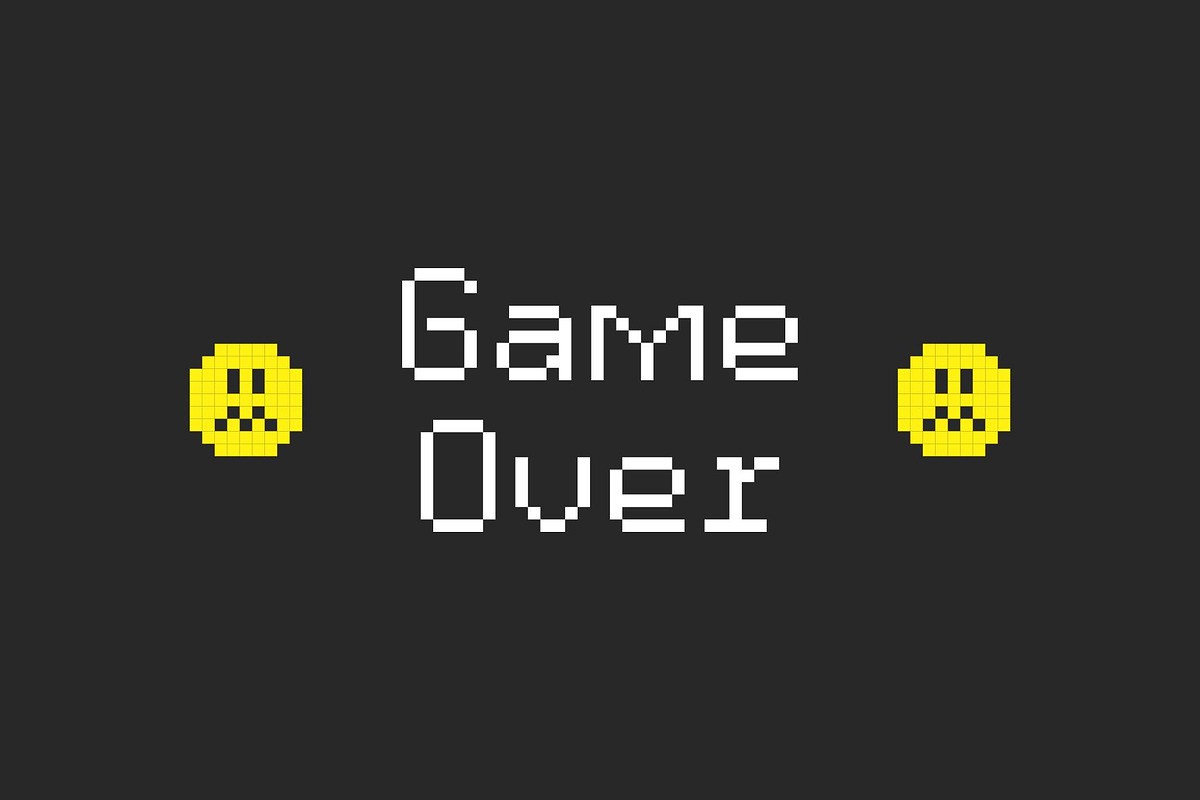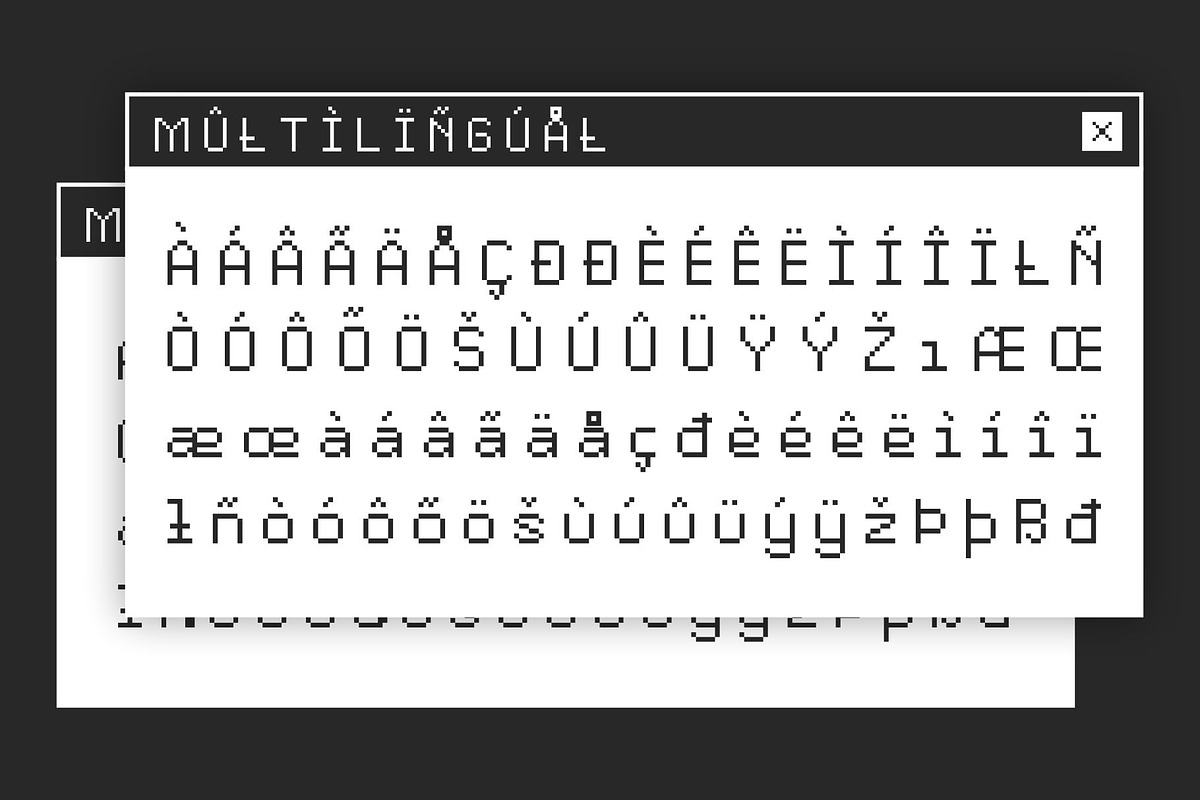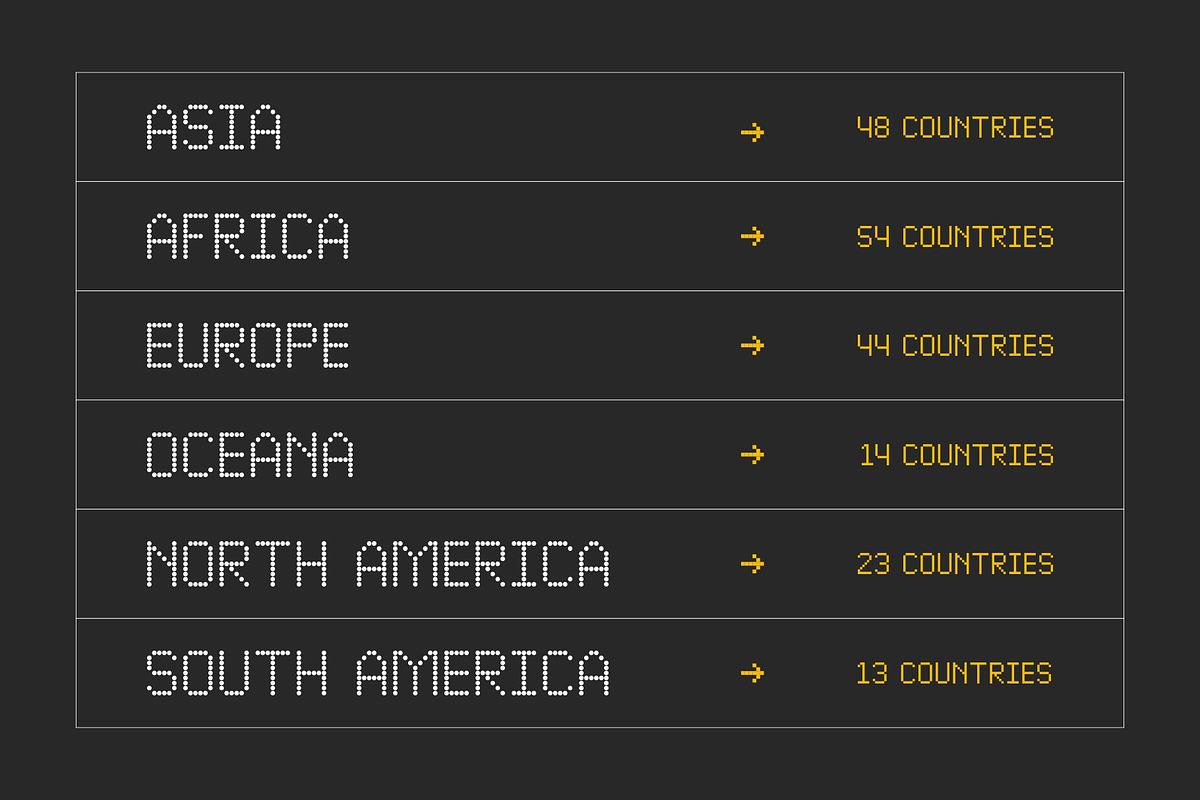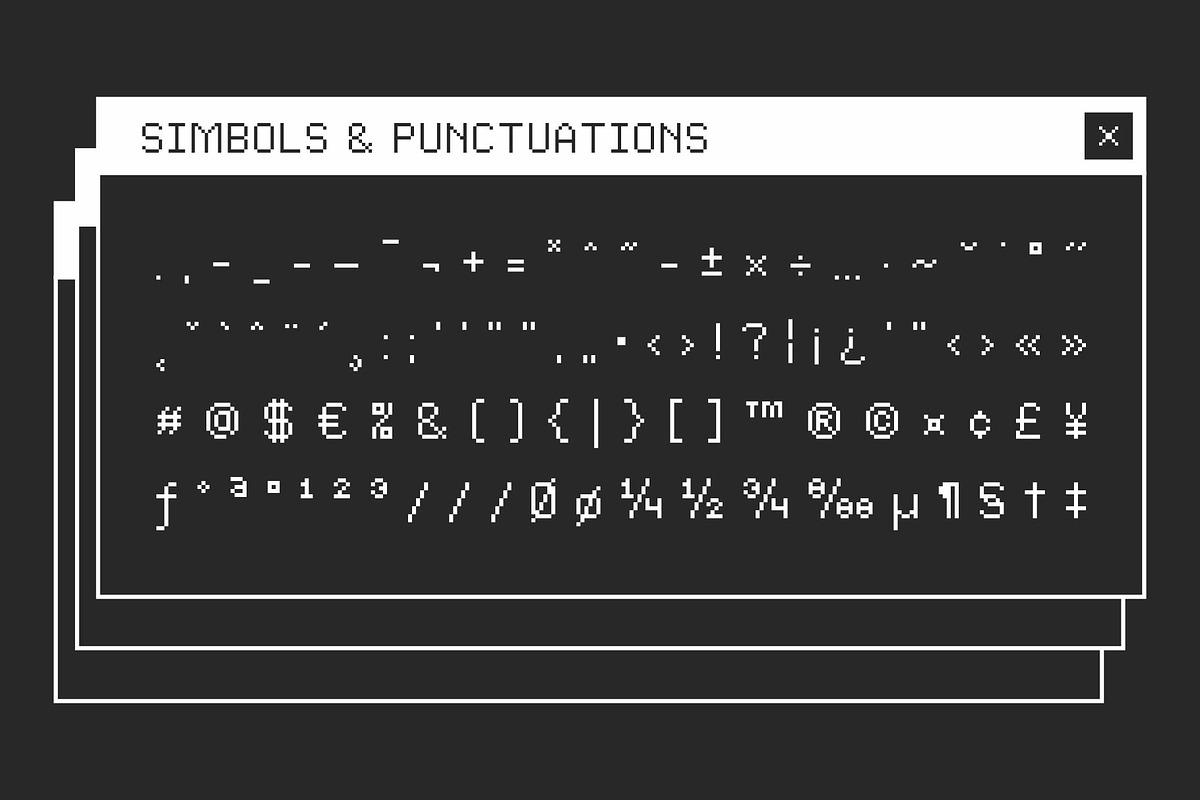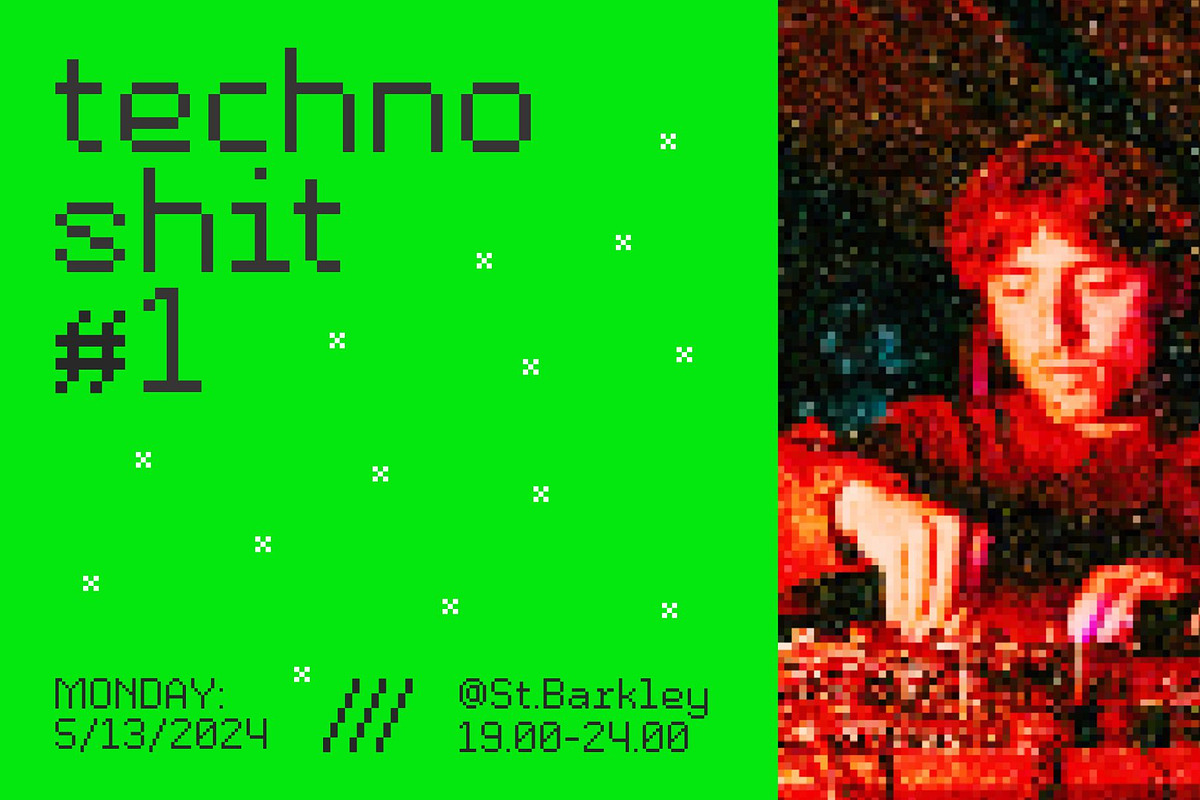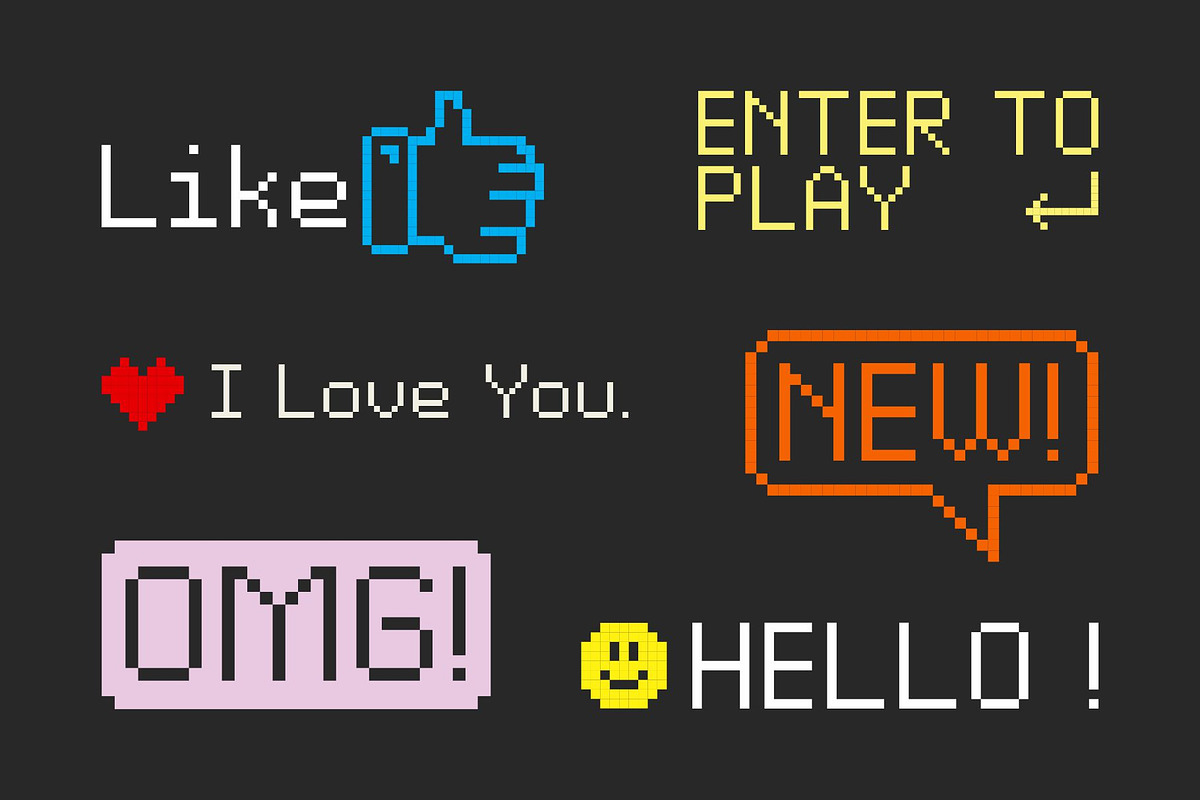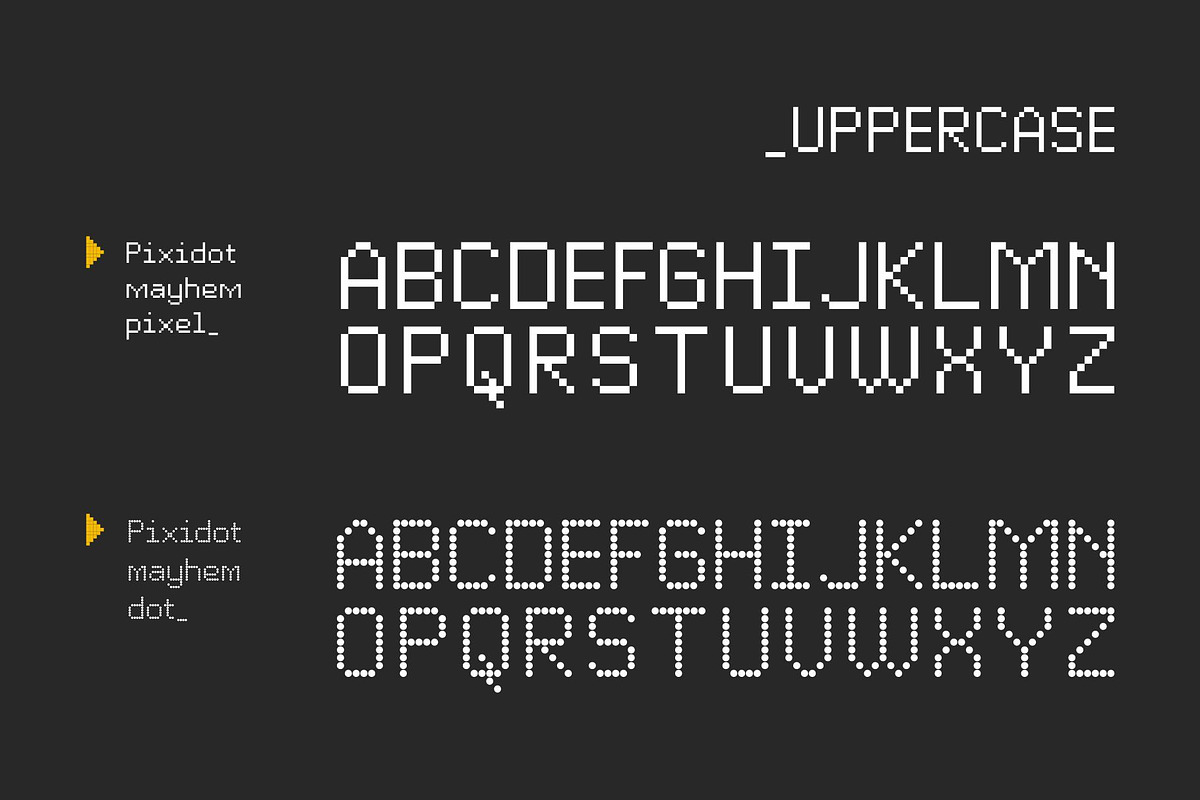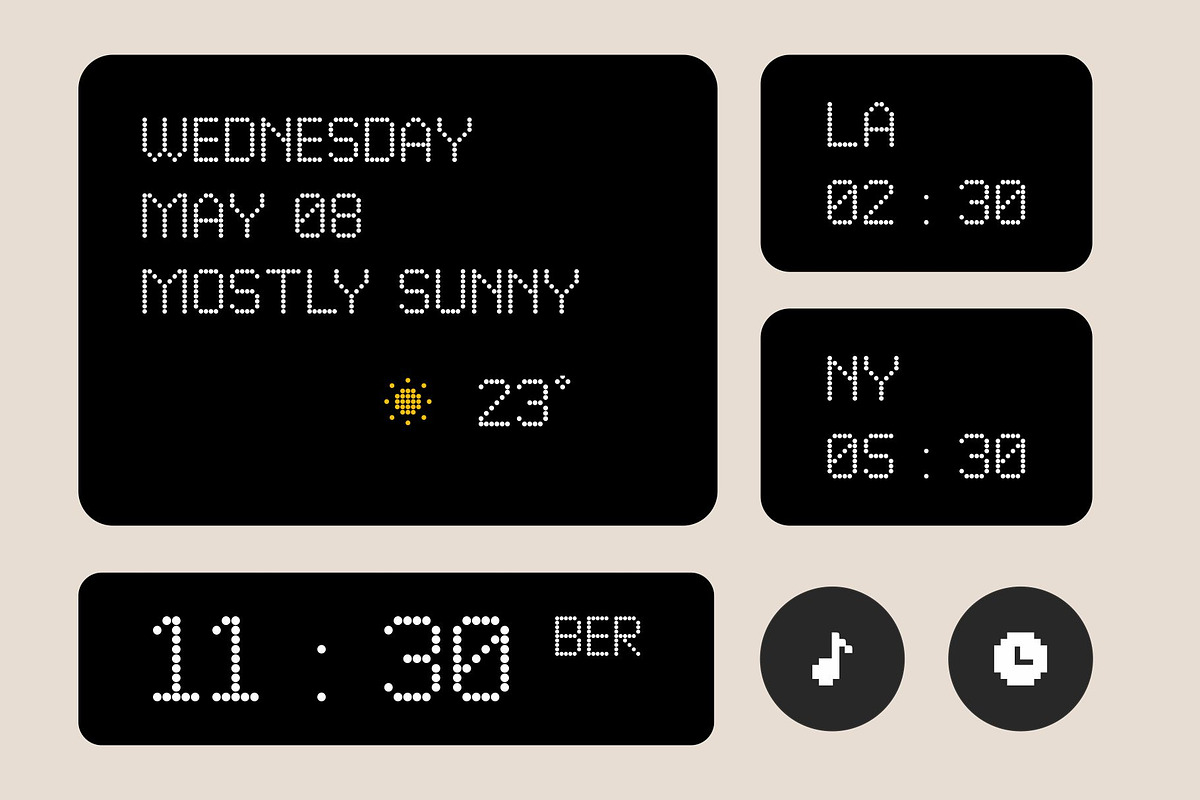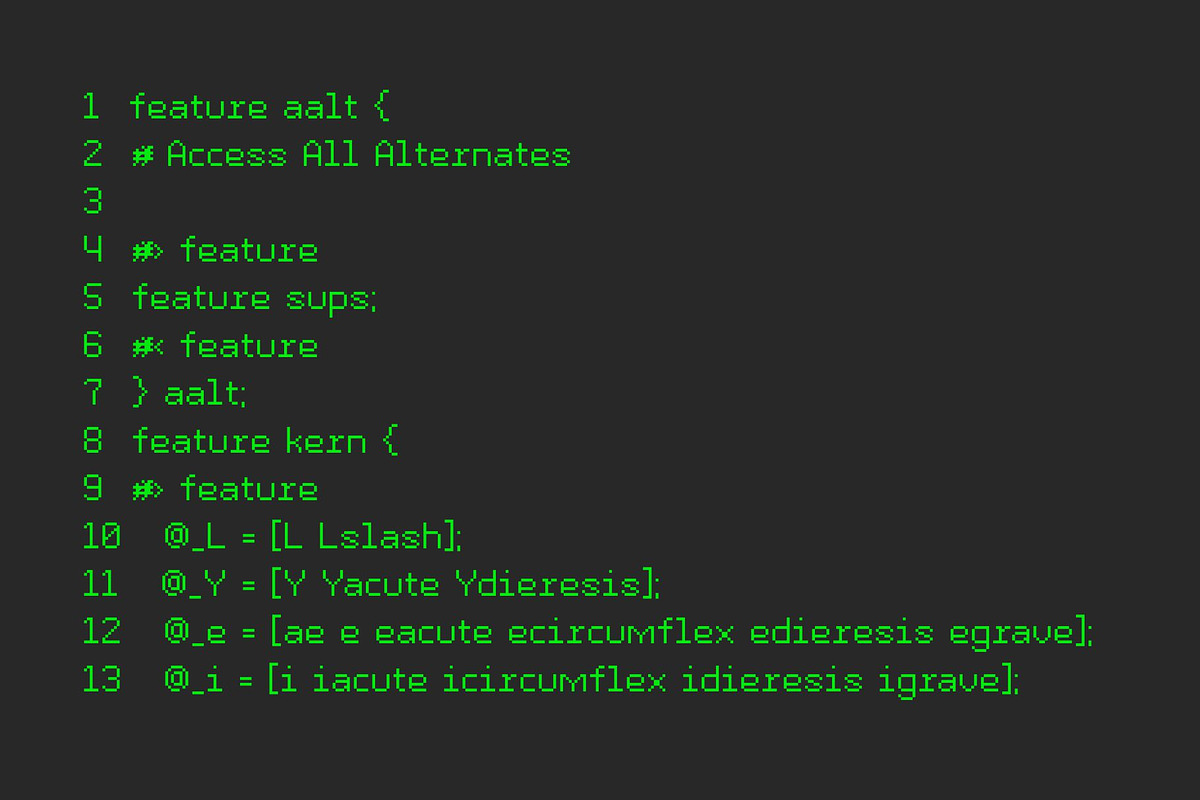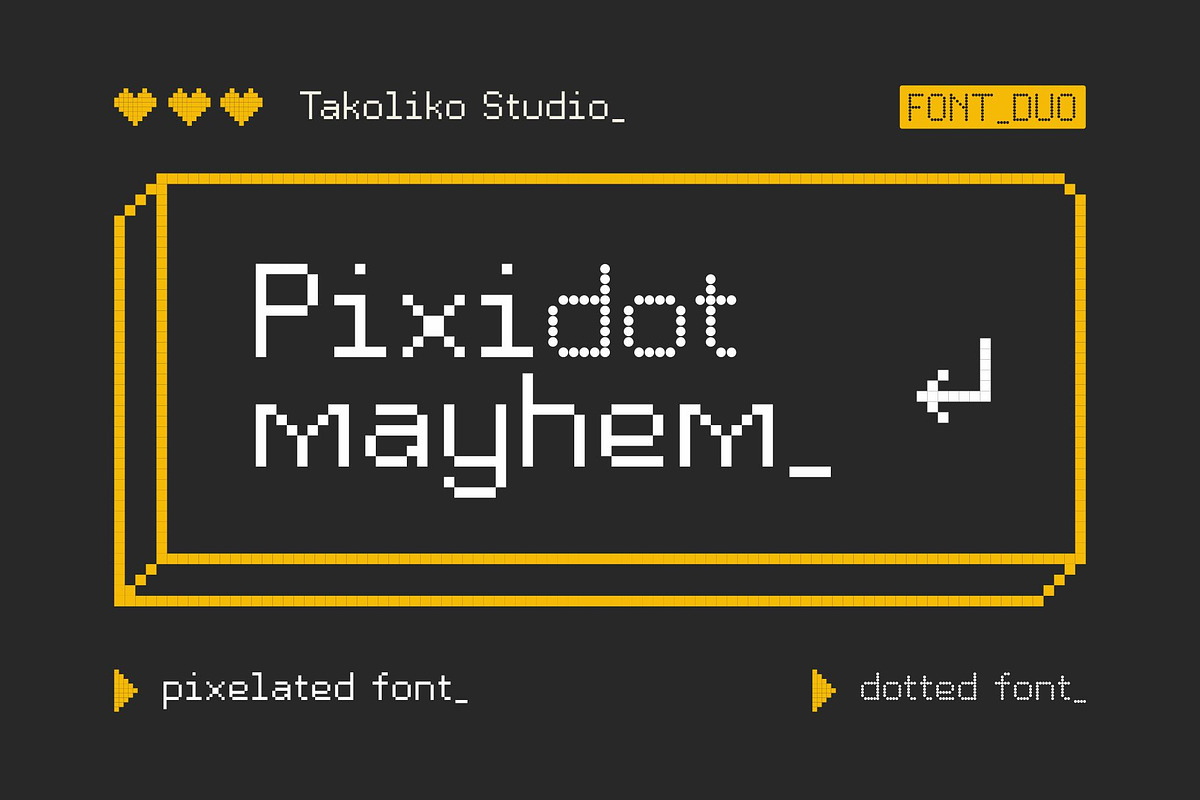
Pixidot mayhem
Introducing 'Pixidot Mayhem,' a captivating fusion of pixel and dot matrix font duo. This typeface teleport you back to the nostalgic era of retro gaming and vintage electronics while submerging you in a digital cauldron of high-tech allure. Pixidot Mayhem is like a lovingly crafted homage to the 80s computing culture, encapsulated in a multi-faceted dot matrix signage reminiscent font that is both visually engaging and nostalgically evocative. Experience the unique blend of the past and the future with Pixidot Mayhem.